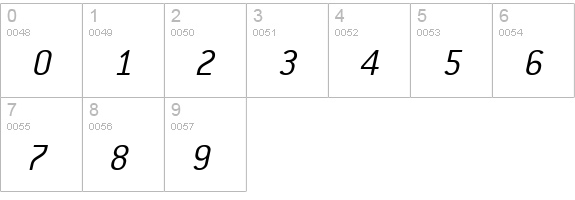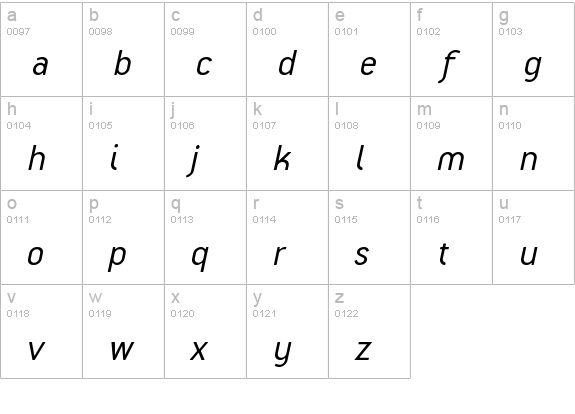
PFPremier Light Italic is a refined, elegant, italic variant in the PFPremier typeface family \xE2\x80\x94 well suited to elegant body text, refined sub-headings, and luxury branding.
The PFPremier Light Italic font exudes elegance and sophistication with its slender, slanted design. Perfect for adding a touch of modern flair to your projects, this font strikes the perfect balance between professionalism and creativity. Its delicate curves and refined strokes make it ideal for conveying a sense of style and refinement. What makes PFPremier Light Italic even more appealing is that it is available for free download at FontsMarket.com. This means you can easily enhance your designs with this exquisite font without any cost. Whether you're working on branding, advertising, or graphic design projects, PFPremier Light Italic will elevate your work to a whole new level. Don't miss out on the opportunity to access this stunning font for free and give your projects a touch of finesse.